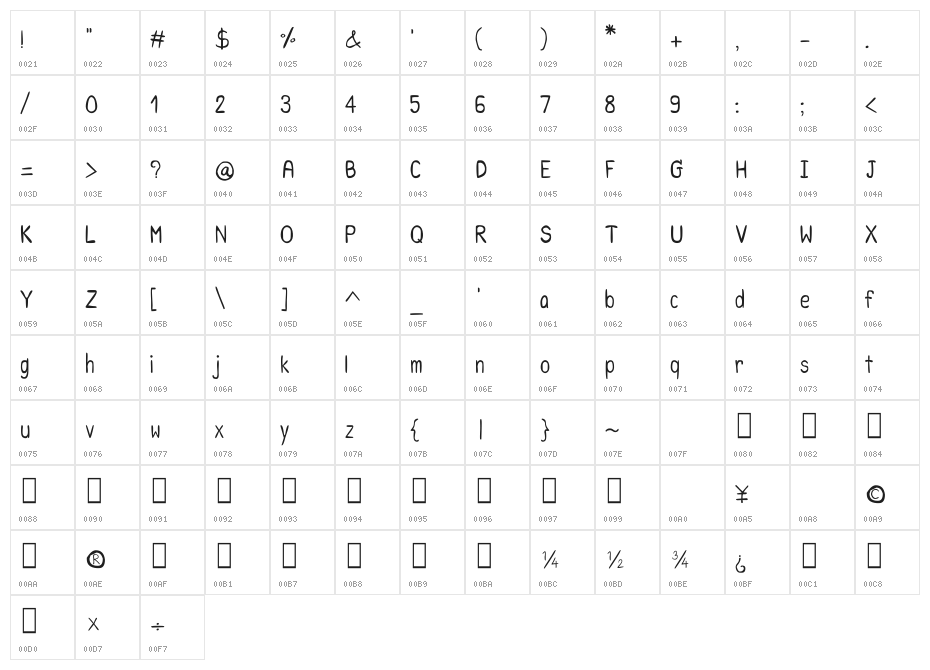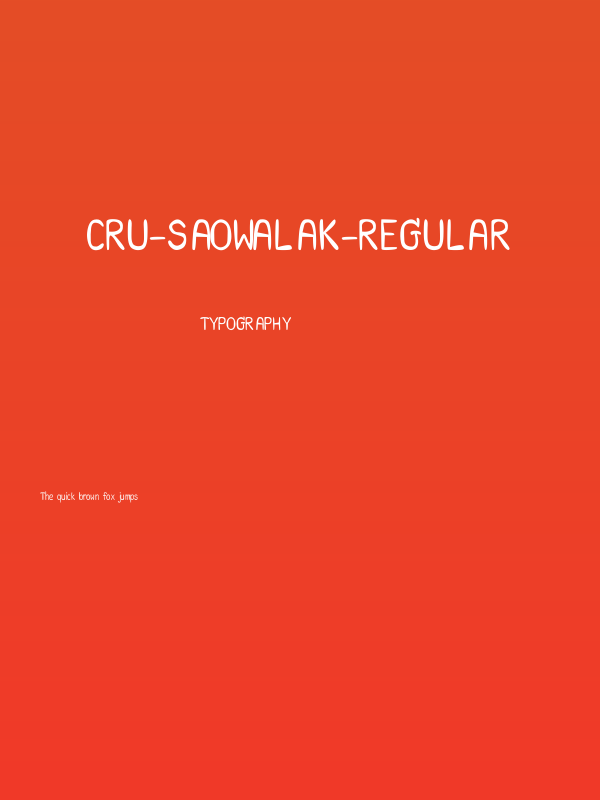
CRU-Saowalak-Regular Font
CRU-Saowalak-Regular Description
This font features a playful and informal style, characterized by its rounded and slightly irregular letterforms. The strokes are consistent in width, giving it a uniform appearance. The uppercase letters are bold and prominent, while the lowercase letters maintain a friendly and approachable look. Numbers and special characters are designed to match the overall whimsical aesthetic, making it suitable for creative and casual projects. The font's design is both modern and versatile, allowing it to be used in various contexts where a lighthearted and engaging tone is desired.
| Use Case | Headlines, Logos, Casual Text |
| Proposed Projects | Ideal for children's books, greeting cards, playful branding, and casual invitations. |